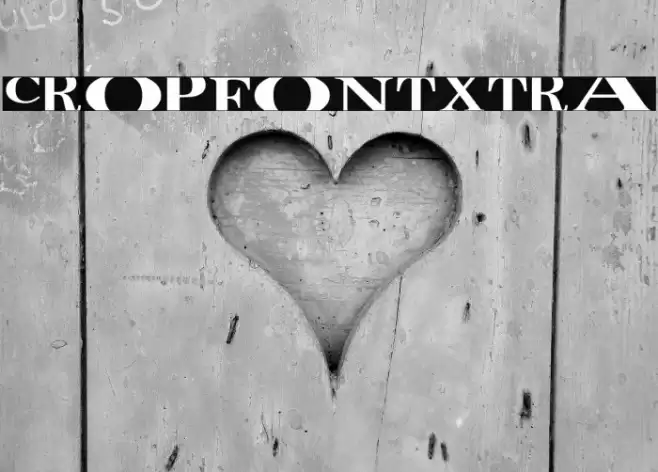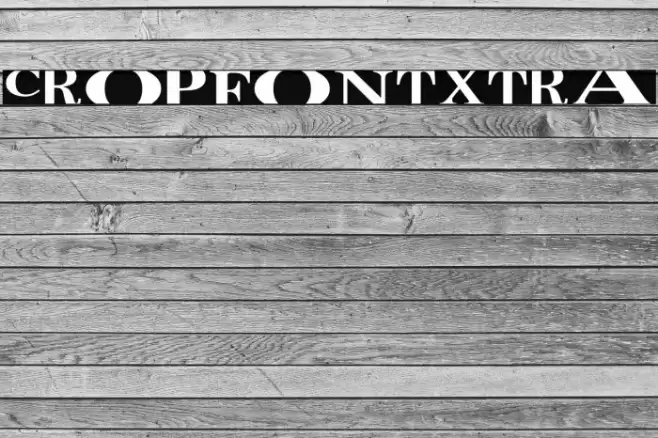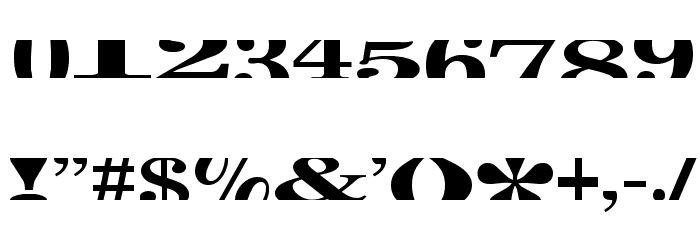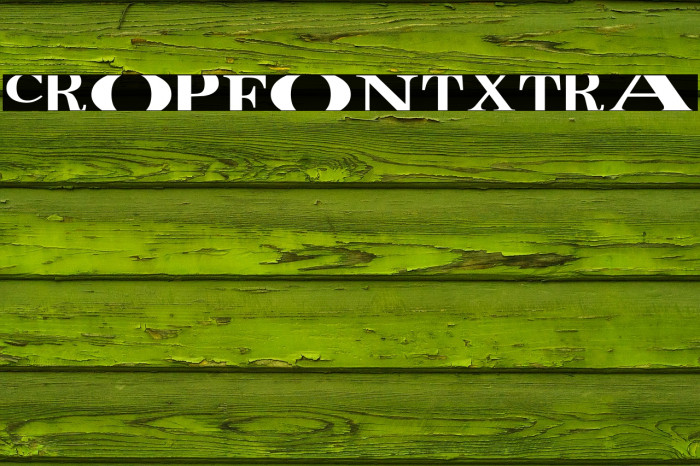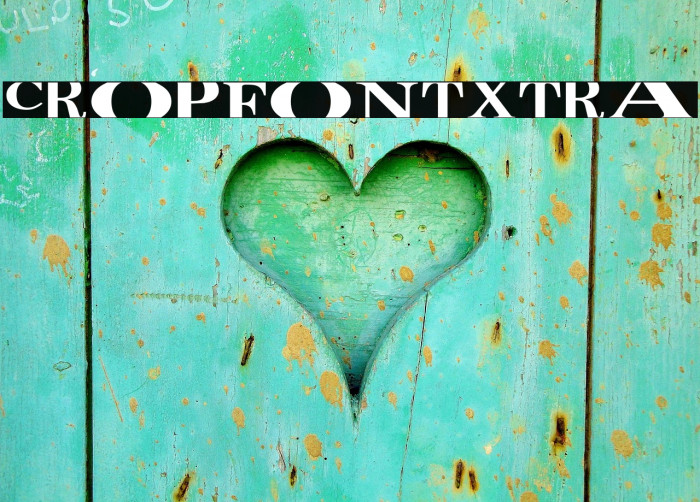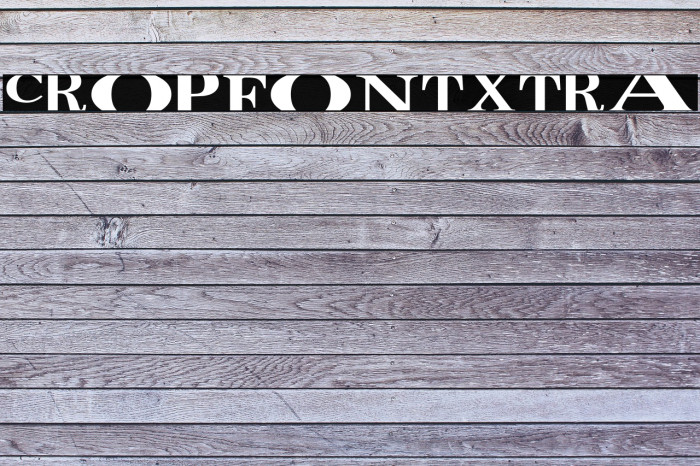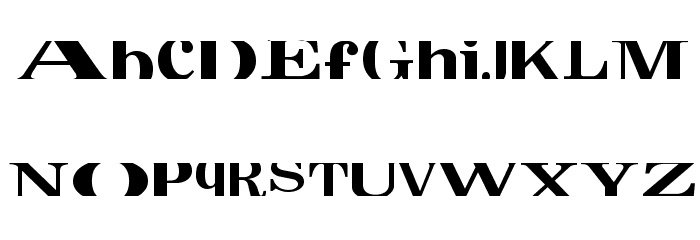
CropFontXtra Font
CropFontXtra Description
This font features a bold and striking design with a modern twist, characterized by its unique cut-out style that creates a sense of movement and dynamism. The uppercase letters are particularly distinctive, with sharp angles and bold lines that make a strong visual impact. The lowercase letters maintain a consistent style, offering a harmonious blend with the uppercase. The numerals and special characters follow the same design principles, ensuring a cohesive look across all text elements. This font's high contrast and bold weight make it ideal for attention-grabbing headlines and display purposes.
A bold, modern font with a unique cut-out style and high contrast from Distorted Eroded fonts.
- Proposed Projects: Ideal for branding, advertising, poster design, and any project requiring a bold, modern aesthetic.